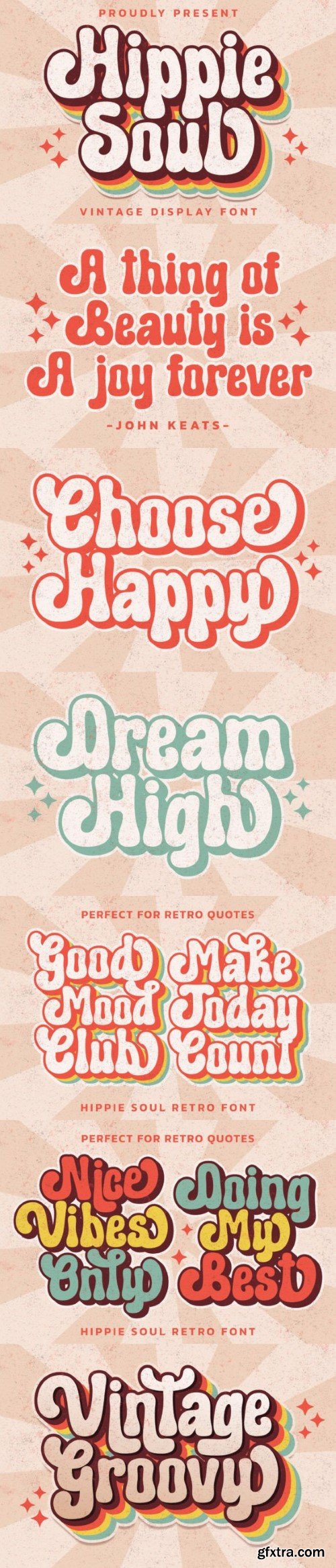
荷西派灵魂字体
Hippie Soul is a fun and groovy display with a funky style. This font is perfect for creating t-shirts, stickers, children’s book covers, social media posts, and much more!